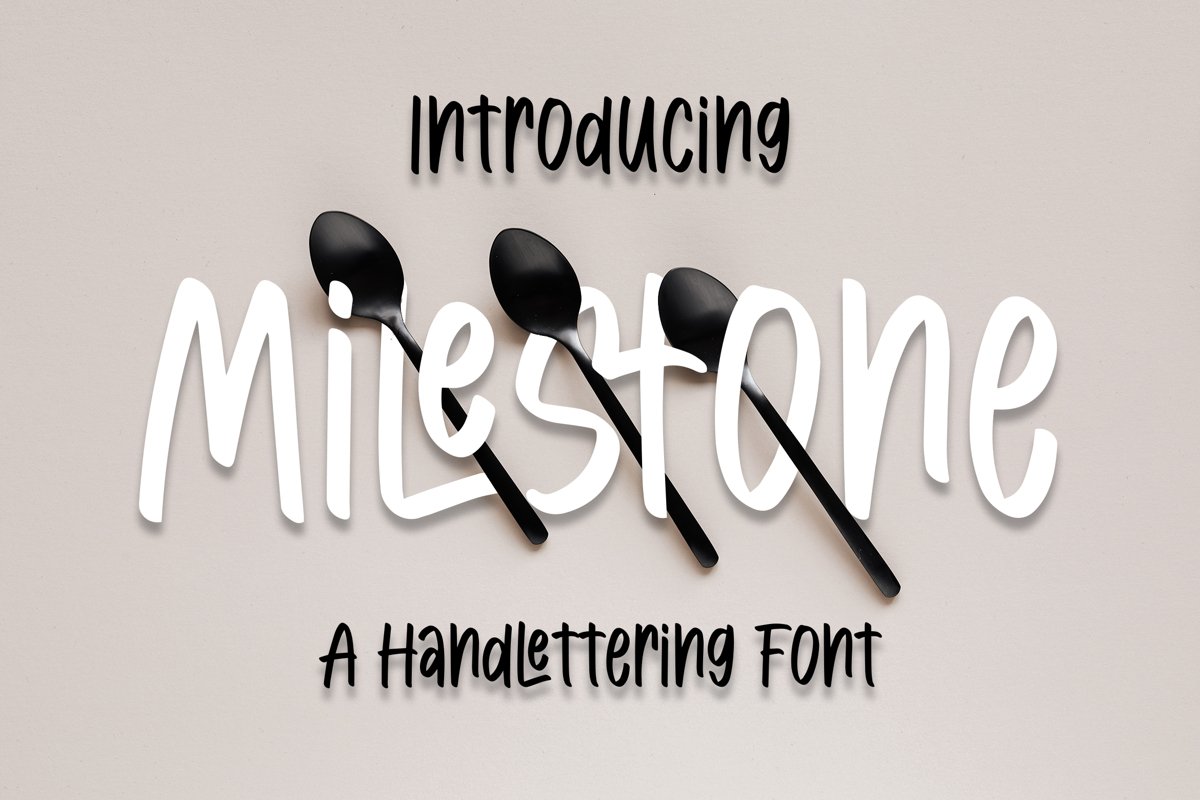
Milestone - Handlettring Font that contain lowercase, uppercase, symbol, and also support multi language. There’s a lot ligatures in this font. This Font also comes with ligatures, alternates and many more. this font suitable for fashion, branding, catalog and other design what you want.
Milestone